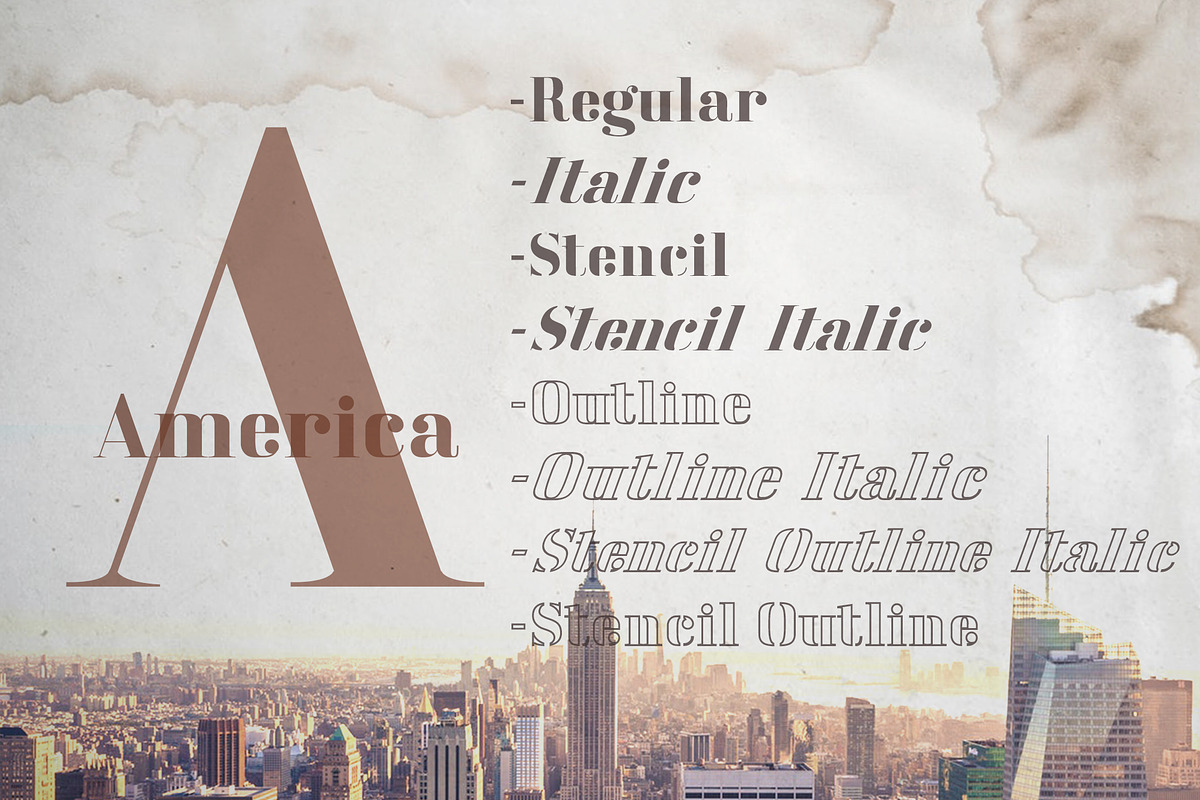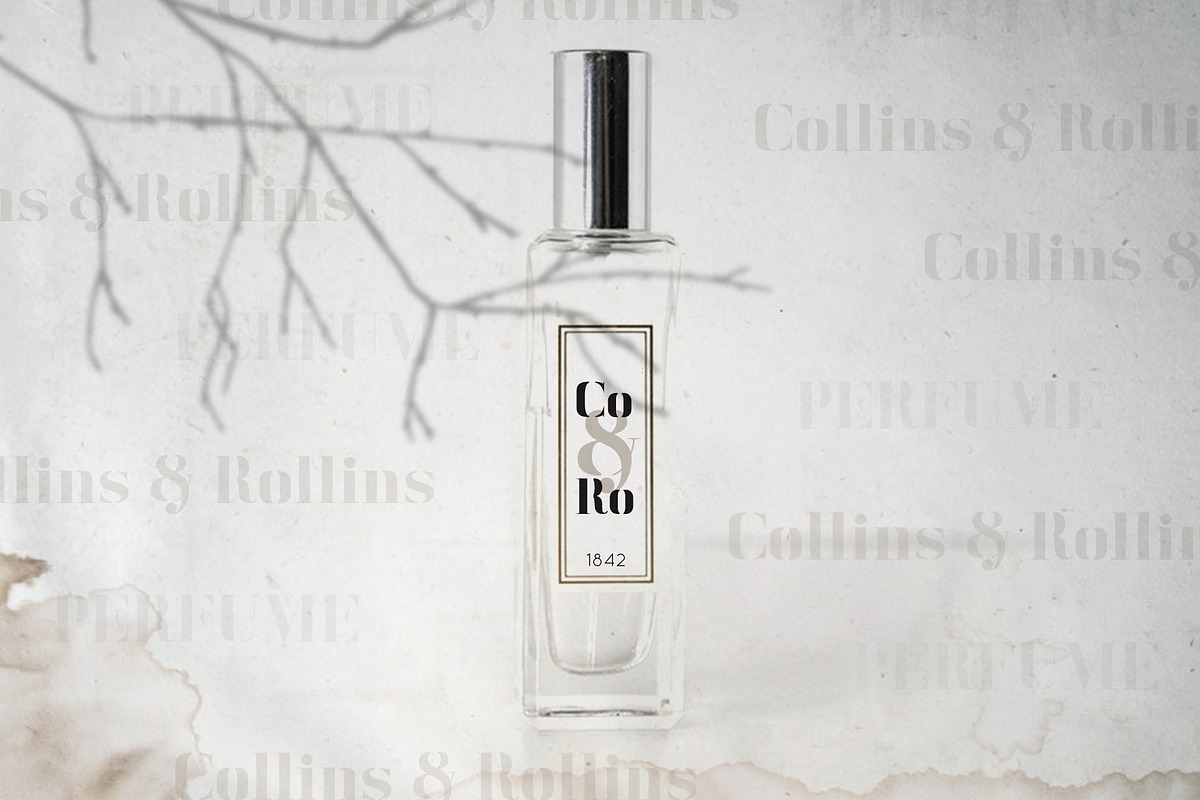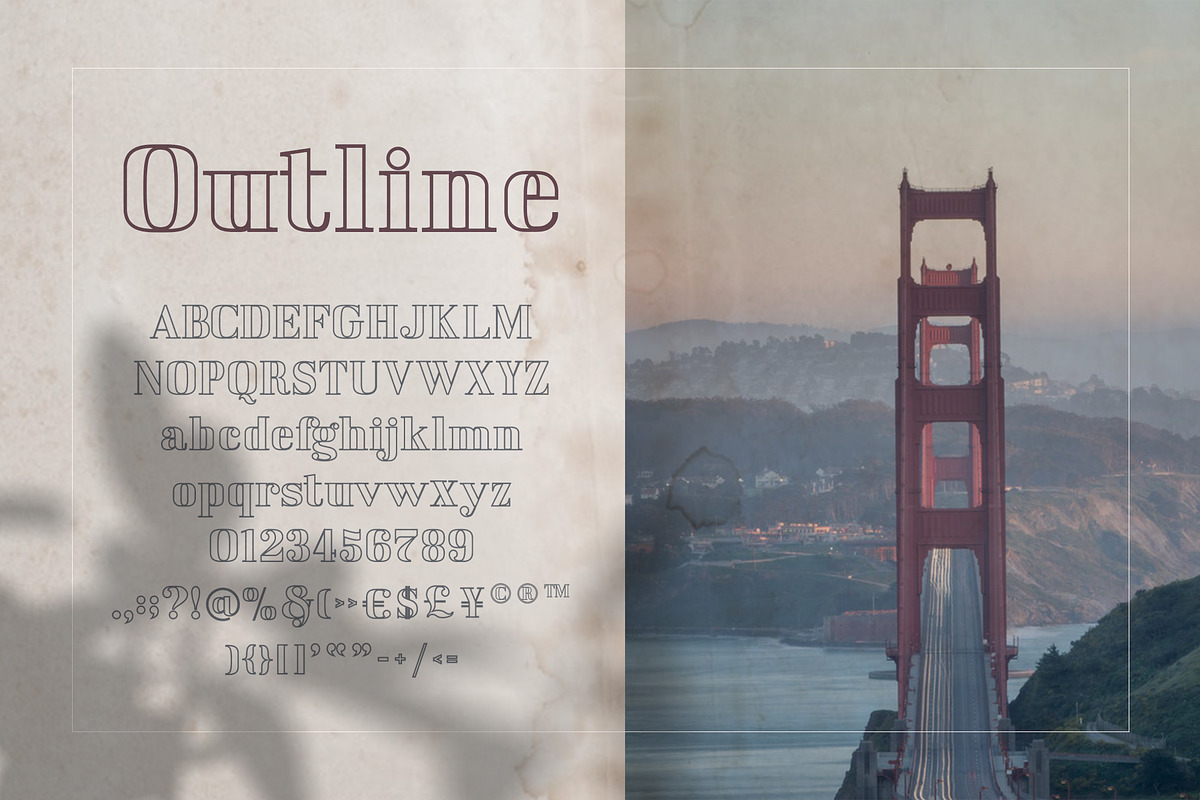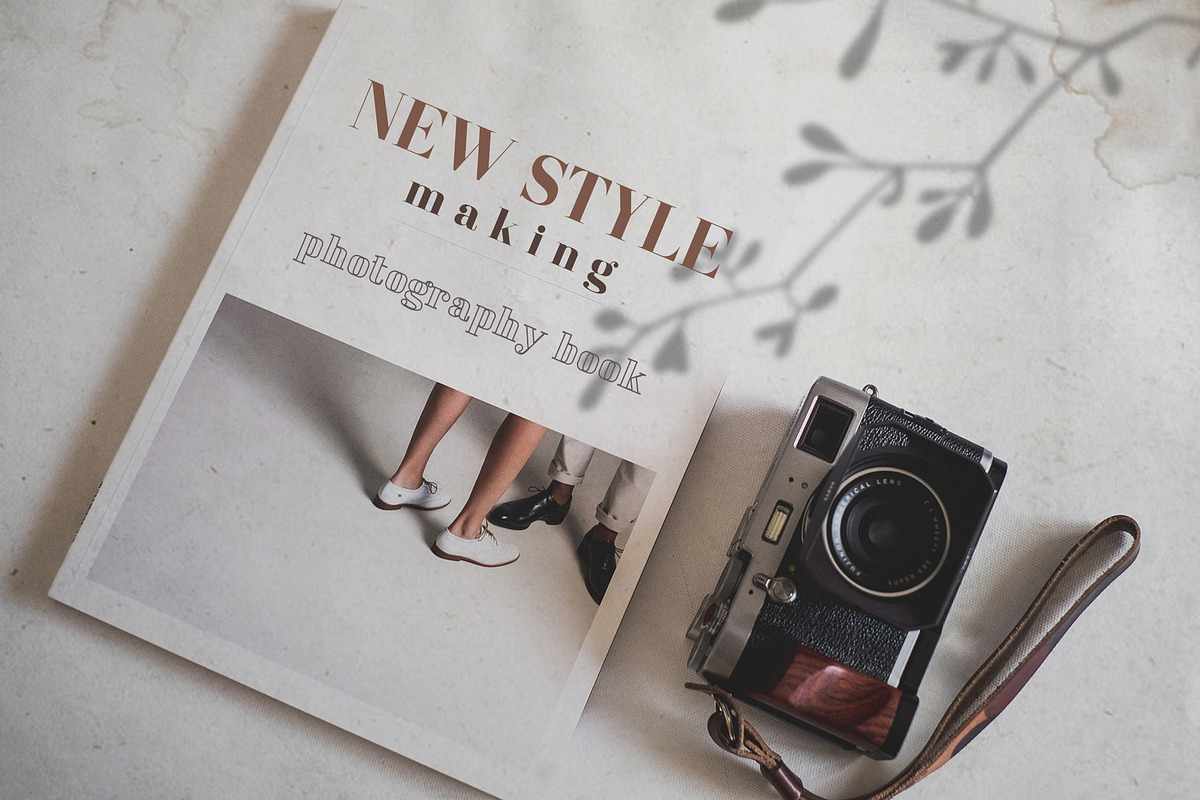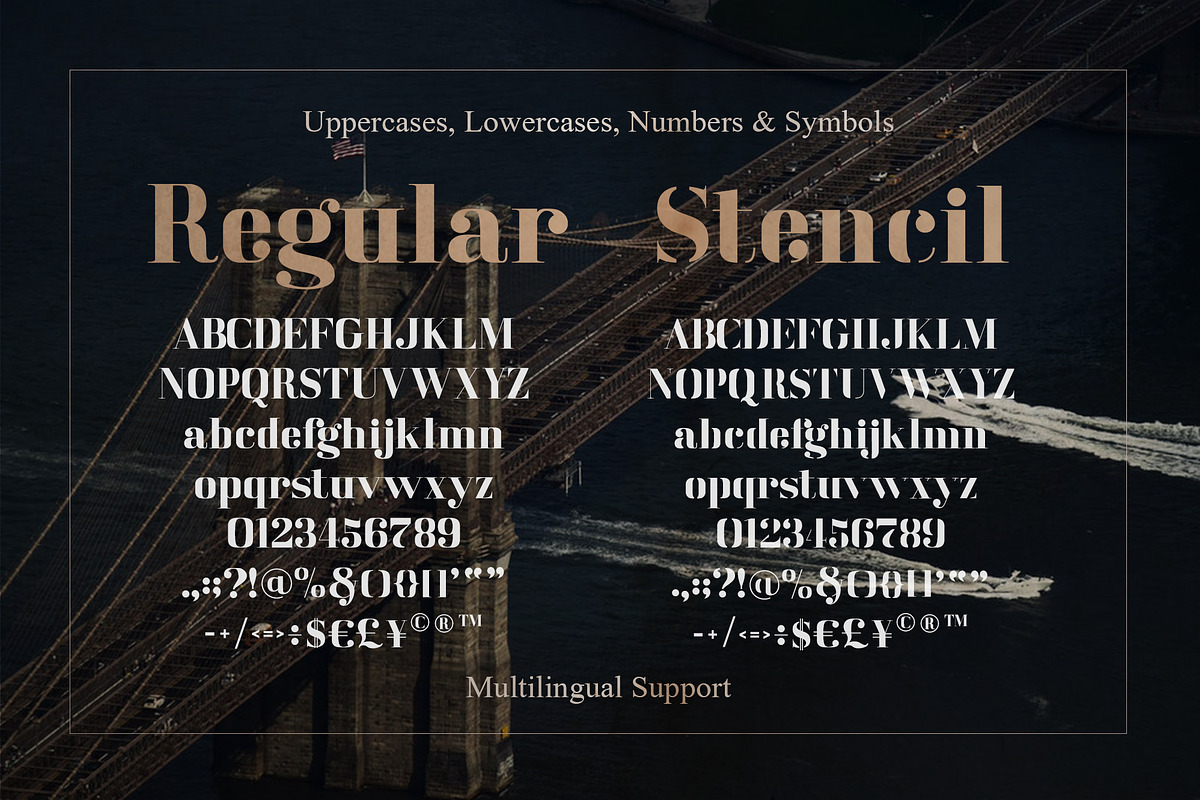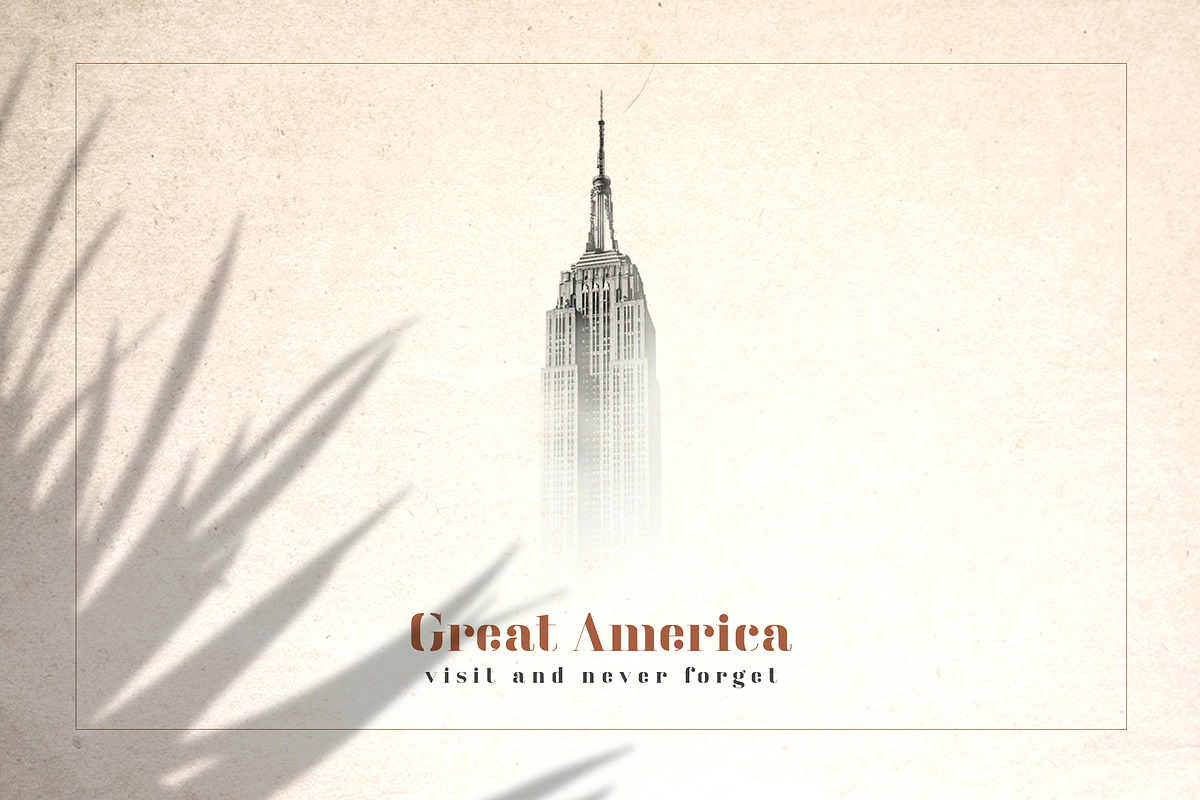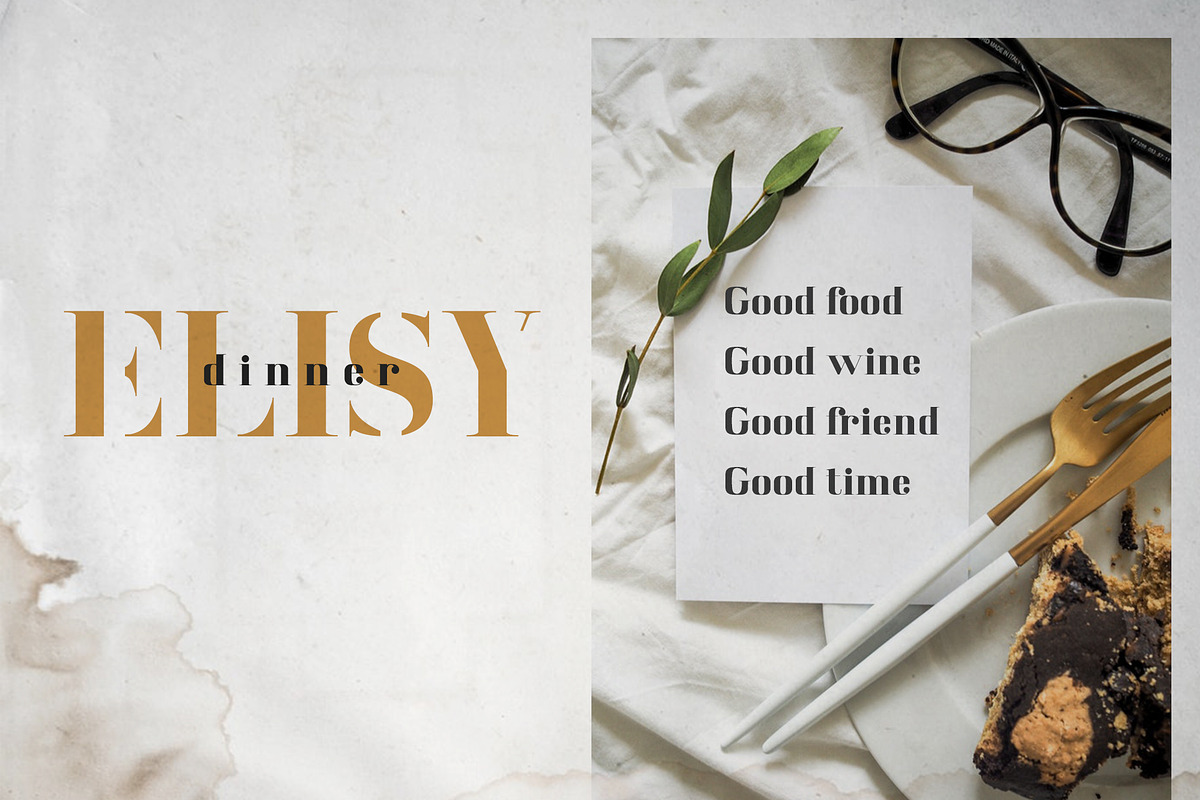
America Serif Font Family
New America serif font family with 8 styles is characterized by its elegance and extreme high contrast. Following design trends i'm sure it is very actual today.
America is delicate and smooth typeface inspired by such concepts as elegance and simplicity, beauty and fashion. It has stunning didonesque display features with distinct ball terminals and elegantly drawn ligatures. America is the perfect typeface to create sleek and elegant headlines and logo designs, branding and publishing projects, posters, packaging, advertising and so much more. It pairs well with both script and sans-serif fonts. It is really new, universal and modern font .
America has not only uppercase and lowercase characters, numbers and punctuations, but also ligatures.
This font includes 8 styles:
America Outline Italic
America Stencil Italic
America Stencil Outline
America Stencil Outline Italic